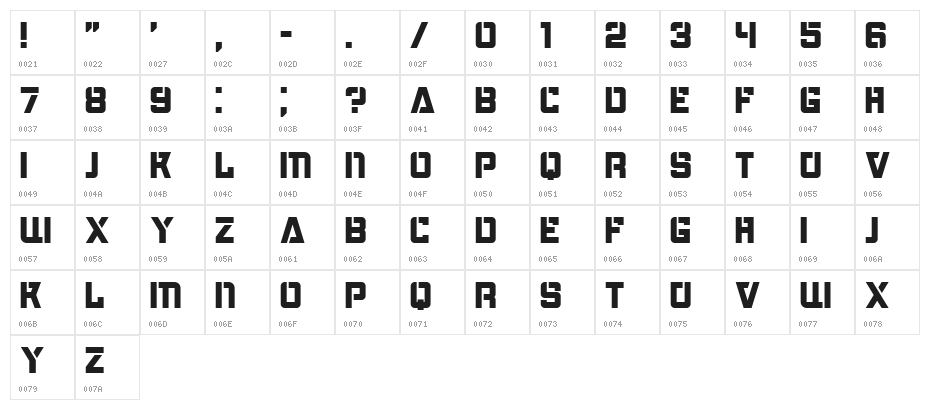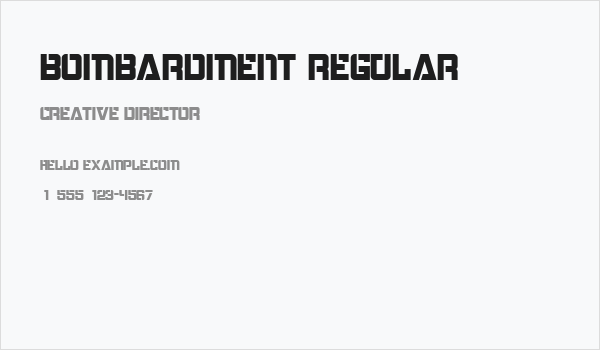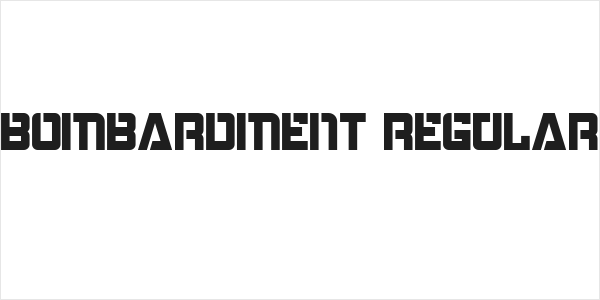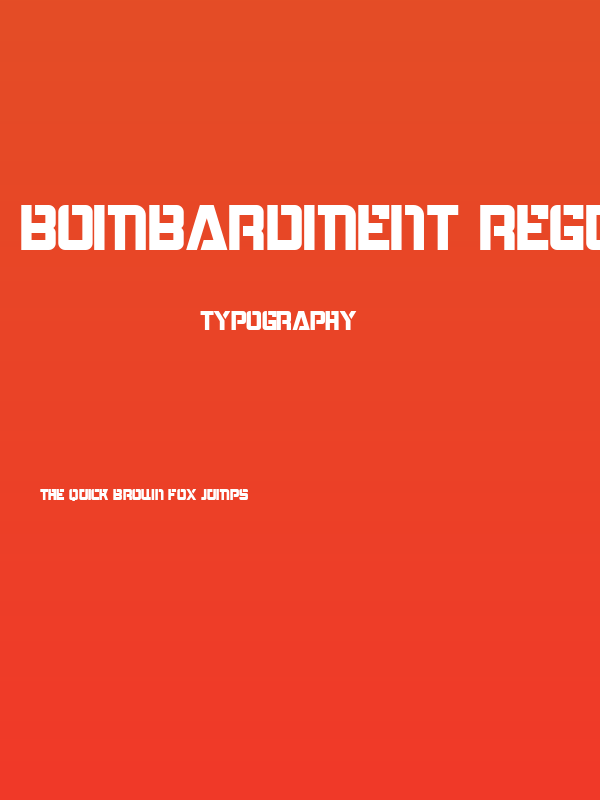
Bombardment Regular Font
Bombardment Regular Description
This font features a bold, geometric design with strong, angular lines and a modern aesthetic. The characters are blocky and robust, creating a sense of strength and impact. Each letter is crafted with precision, offering a uniform appearance that is both striking and legible. The uppercase and lowercase letters maintain a consistent style, while the numerals and special characters complement the overall design. This font is ideal for projects that require a bold statement, such as posters, headlines, or branding materials.
| Proposed Projects | Ideal for posters, headlines, branding materials, and any project needing a bold statement. |